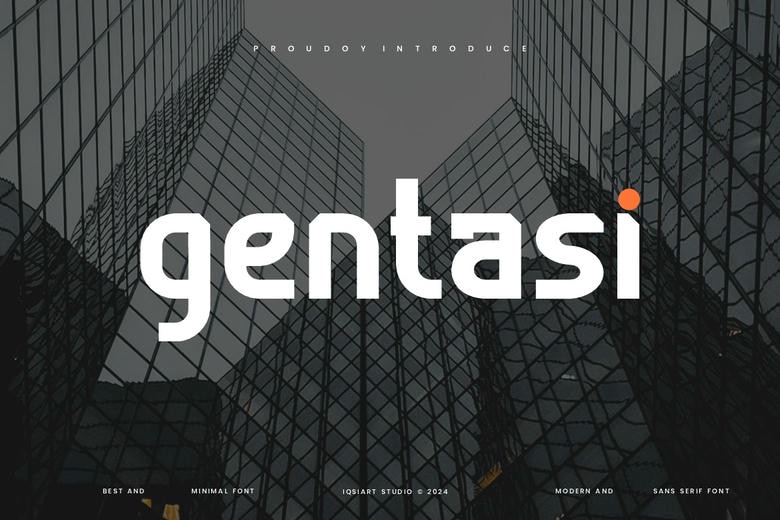
Gentasi Font
Gentasi is a daring and aggressive sans serif typeface. Regardless of the subject, this font will be a fantastic addition to your fonts library, because it can make any work soar.
Gentasi Sans Serif Font